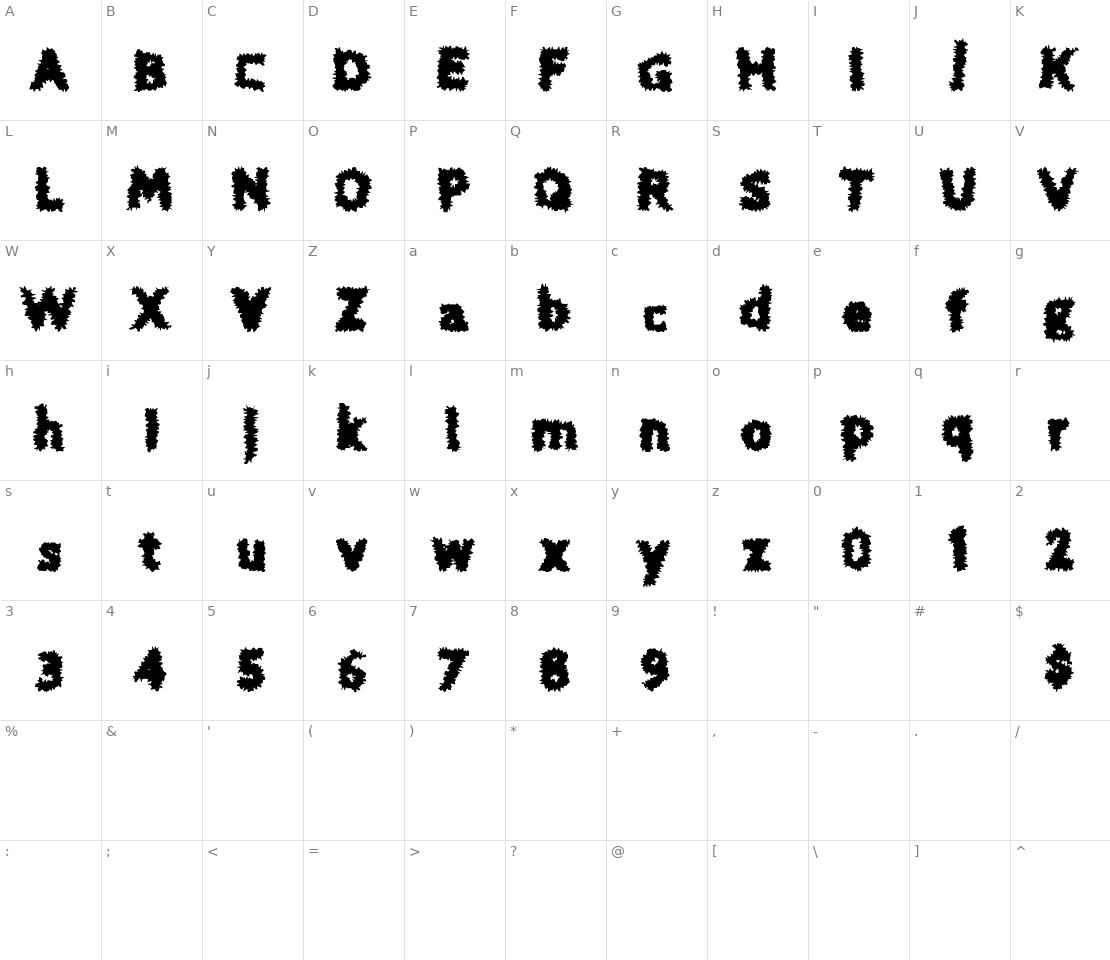
Bite Tyme
Bite Tyme is a heavy, eroded display face from Xerographer Fonts where every letterform looks like it's been chewed up and left to decay. The fuzzy, pitted texture gives it a visceral horror quality, somewhere between mold growth and acid damage. Built for headlines, posters, and dark-themed projects where you need type that feels genuinely unsettling at large sizes.